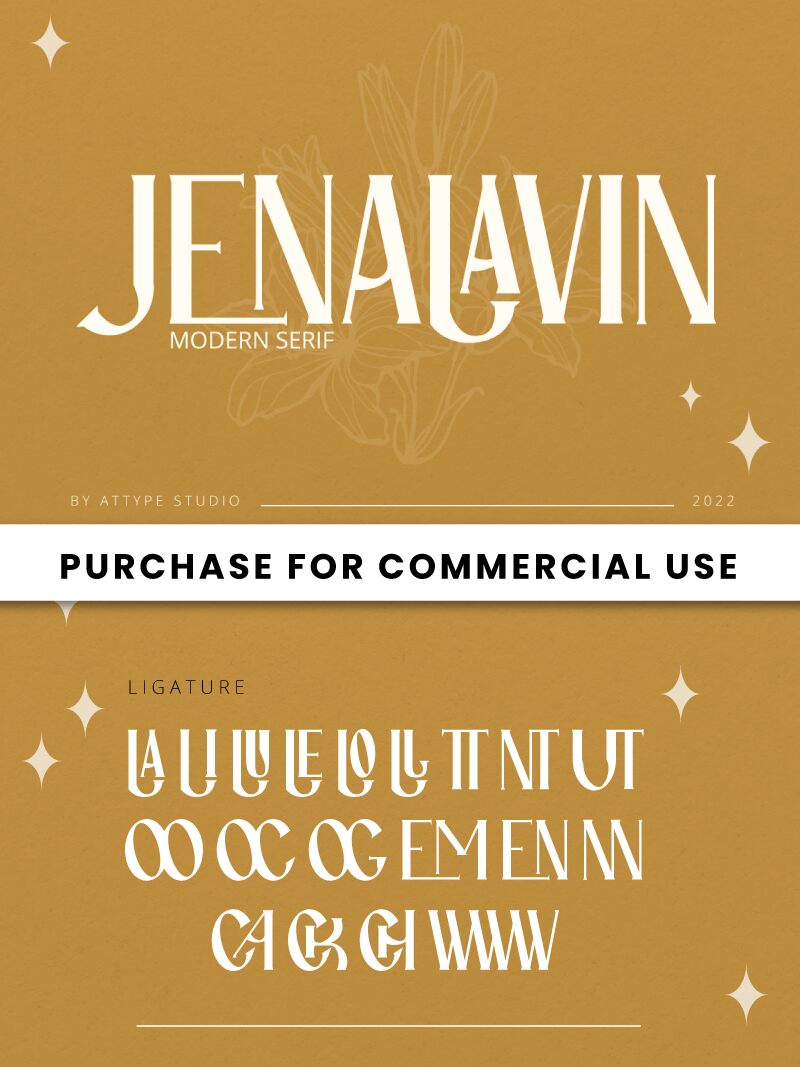
Jenalavin Regular
Jenalavin font by Attype Studio is a retro display typeface with a sophisticated aesthetic. Its elegant and graceful design showcases classic influences, slightly ornamental features, and elements of serif style, making it a unique choice for distinctive projects.
Applications include signage work, newspaper titles, magazines, posters and flyers in all sizes. It also works well on business cards, invitations for weddings or engagements, greeting cards or any other beauty-focused printout!